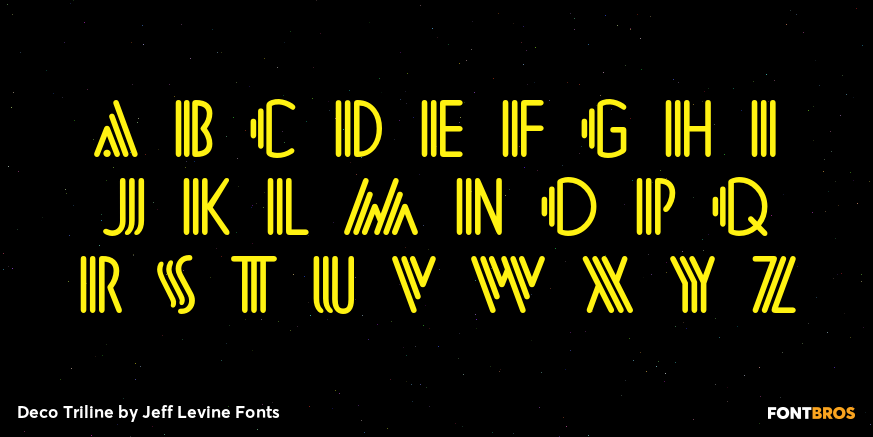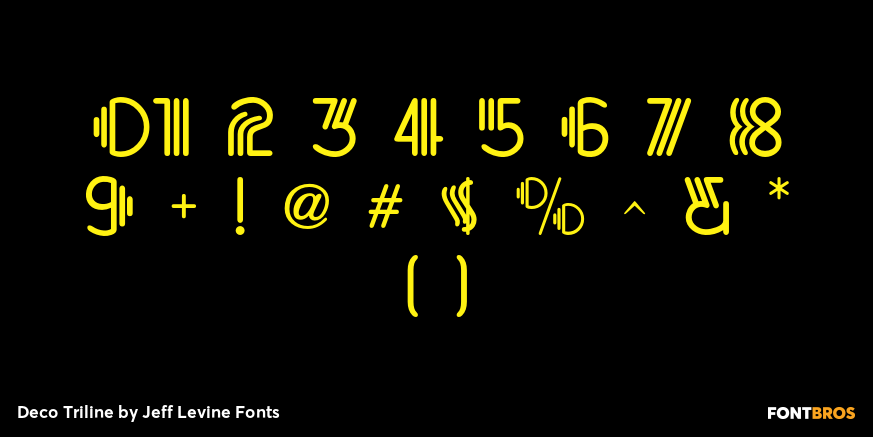
Deco Triline
From the title on the sheet music for the 1935 composition 'Along Tobacco Road” comes Deco Triline JNL in both regular and oblique versions.
Reminiscent of Broadway if done as a neon sign, this typeface virtually shouts about the Manhattan nightlife of the 1930s.
For maximum readability, space the letters a bit wider than normal.